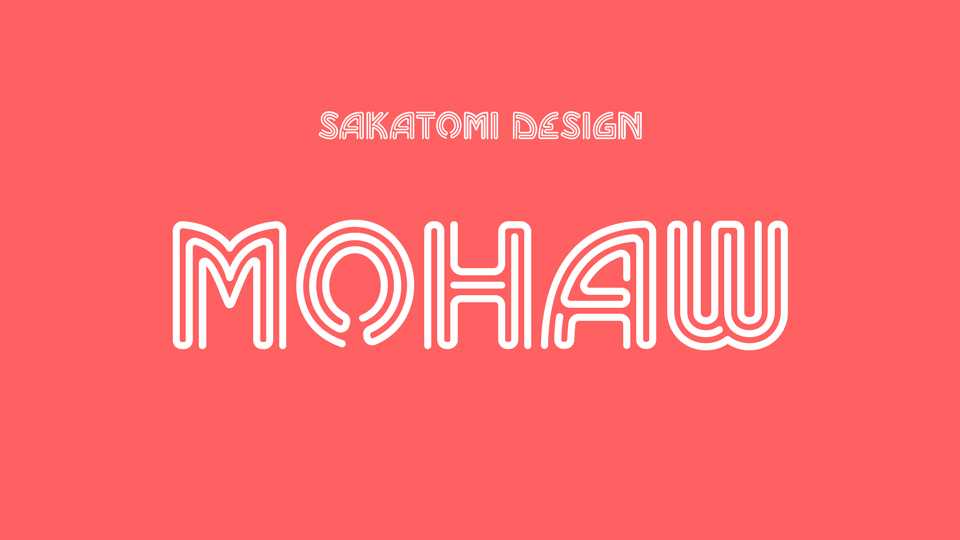
Download Mohaw font, a neon style geometric typeface with simplistic forms, smooth curves and soft terminals. With its retro look Mohaw font is great for or use in posters, headlines, signage, and for branding purposes.